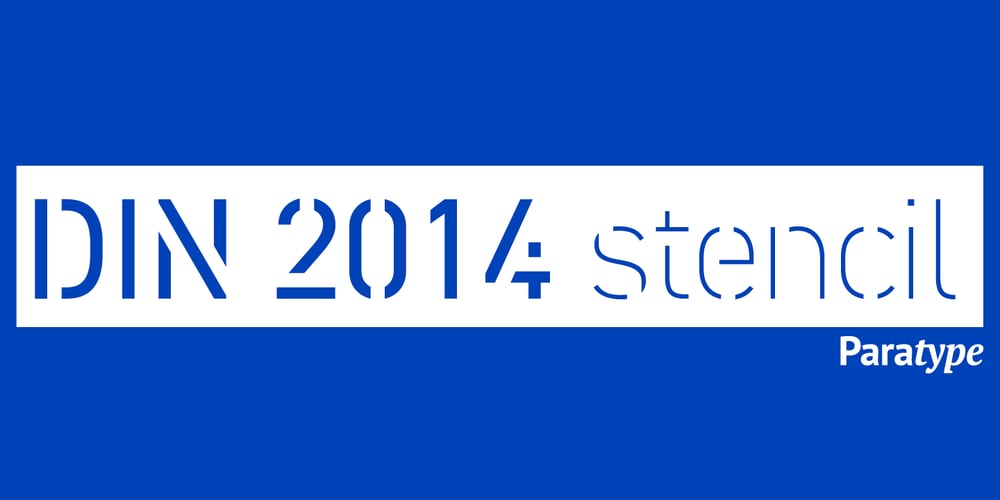
DIN 2014 Stencil Font Family was designed by Vasily Biryukov and published by ParaType. DIN 2014 Stencil contains 18 styles and family package options. DIN 2014 Stencil is a stencil version of DIN 2014 typeface inspired by signage, data plates and stencilled building inscriptions. The typeface has a pronounced industrial spirit and can be used in the most rigorous conditions. DIN 2014 Stencil family consists of 18 styles which include six weights (corresponding to DIN 2014) with three grades of ‘stencilness’ for each weight. The typeface was designed by Vasily Biryukov and released by Paratype in 2017.